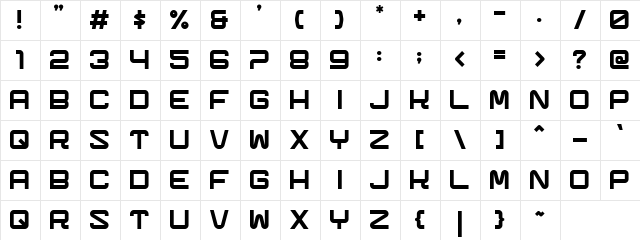
Teknikaler Regular Font Preview
Teknikaler Regular
Teknikaler Regular Font Details
| Foundry | alexatype |
| Designer | alexatype |
Design Context for Teknikaler Typeface
Teknikaler offers clean, dependable letterforms without strong stylistic allegiance, making it a practical choice for designers who need flexibility.